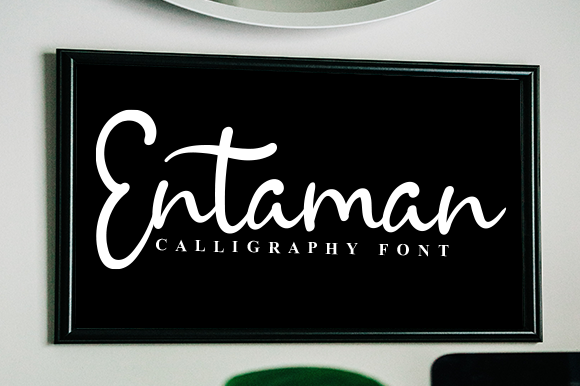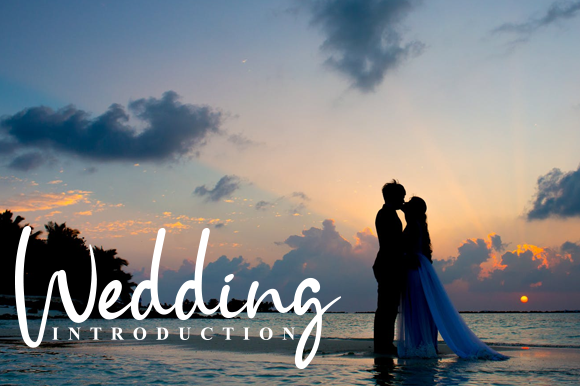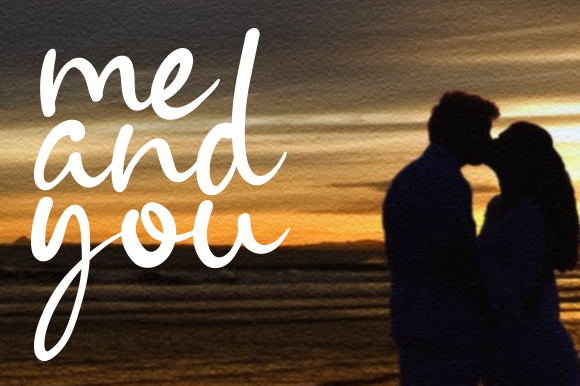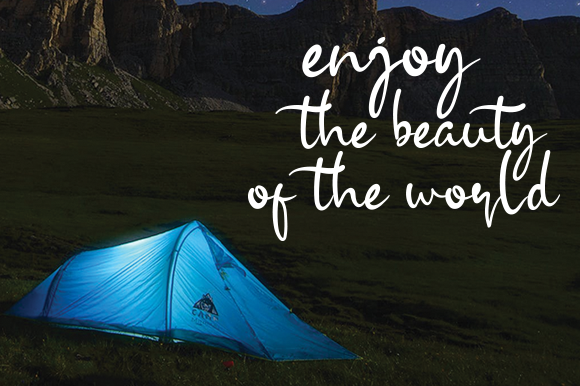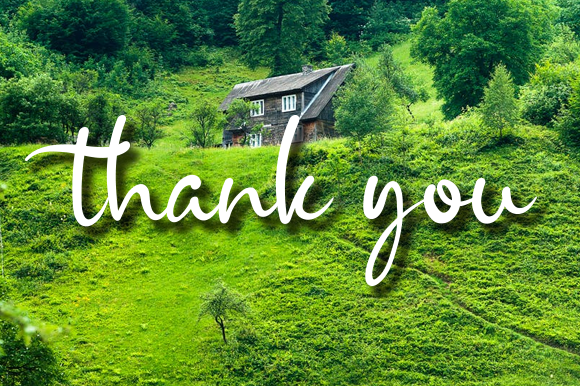
Entaman Font
About Entaman Font
Entaman is a magical handwritten font carefully created with a touch of elegance. This is a beautiful combination of timeless elegance and authentic calligraphy. It features an incredibly classic style, while still keeping a friendly feel. Entaman is the perfect font for making original and outstanding designs.